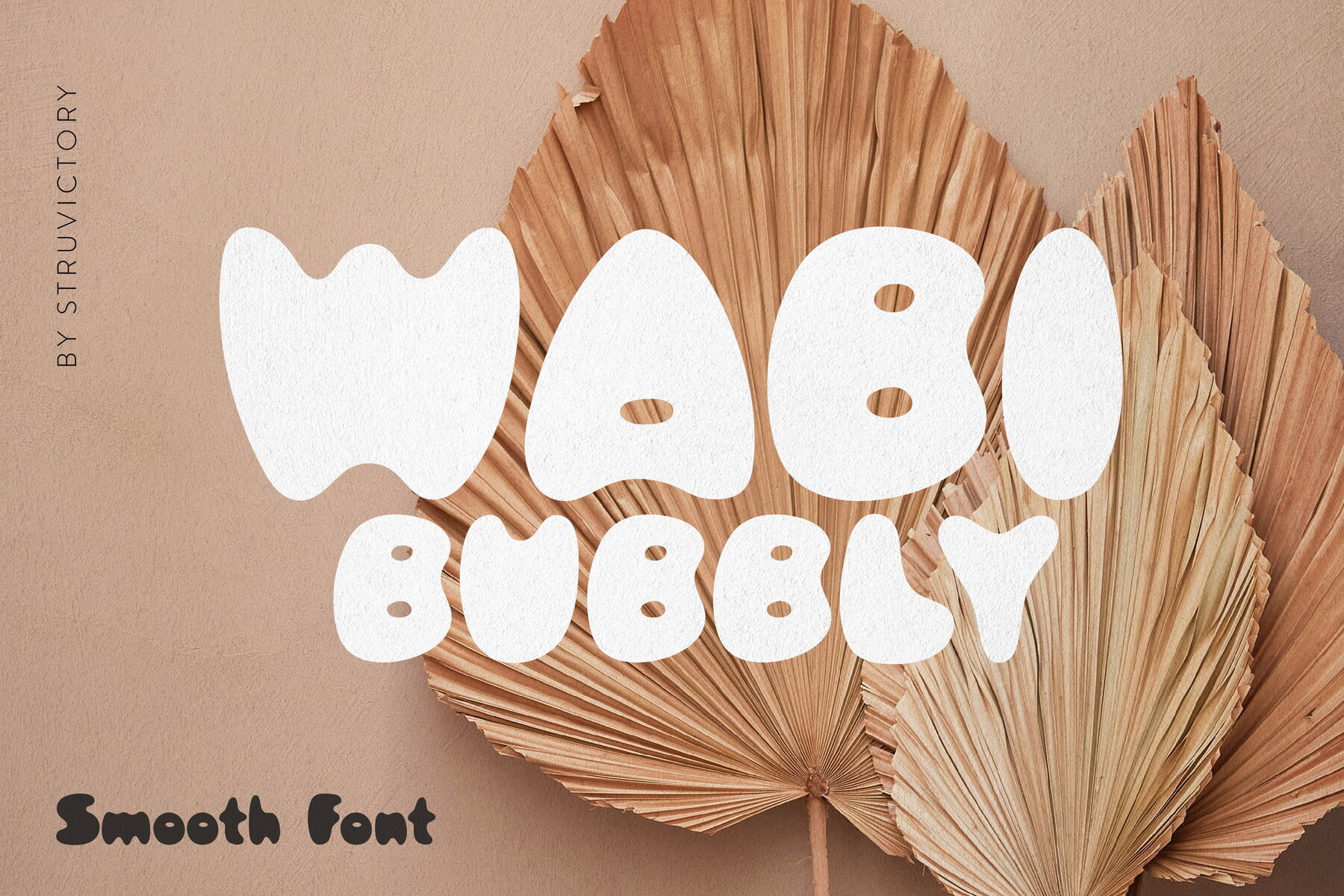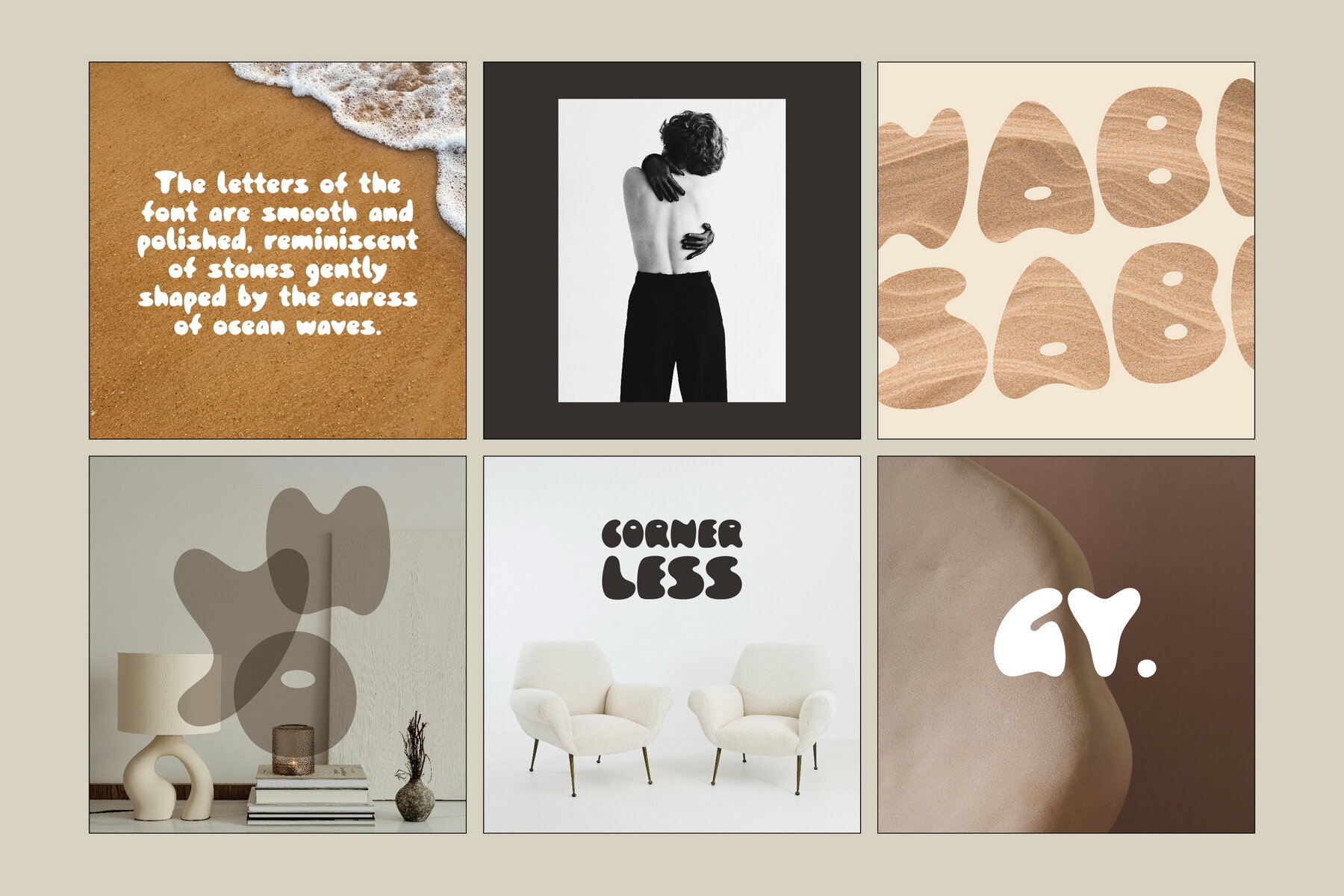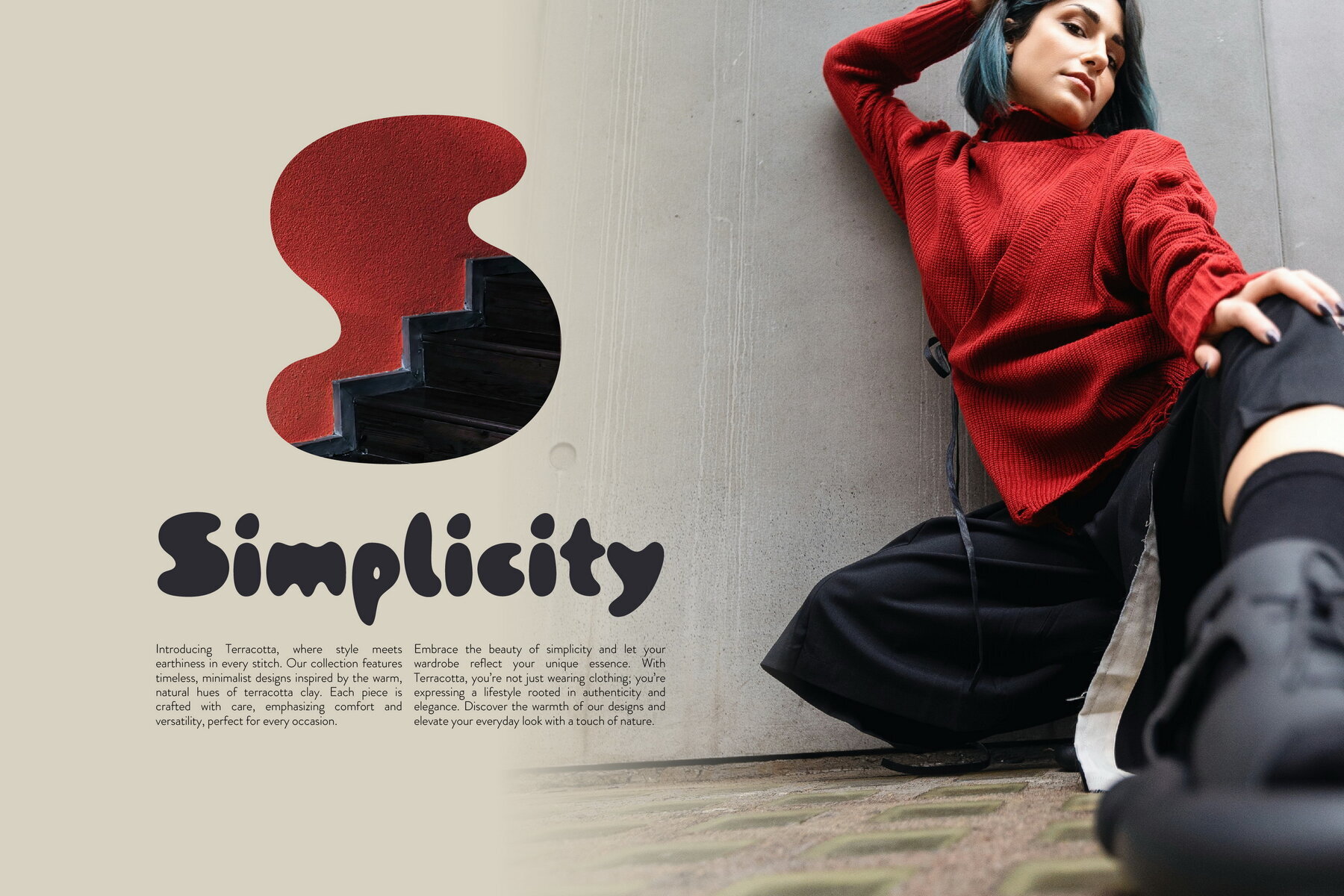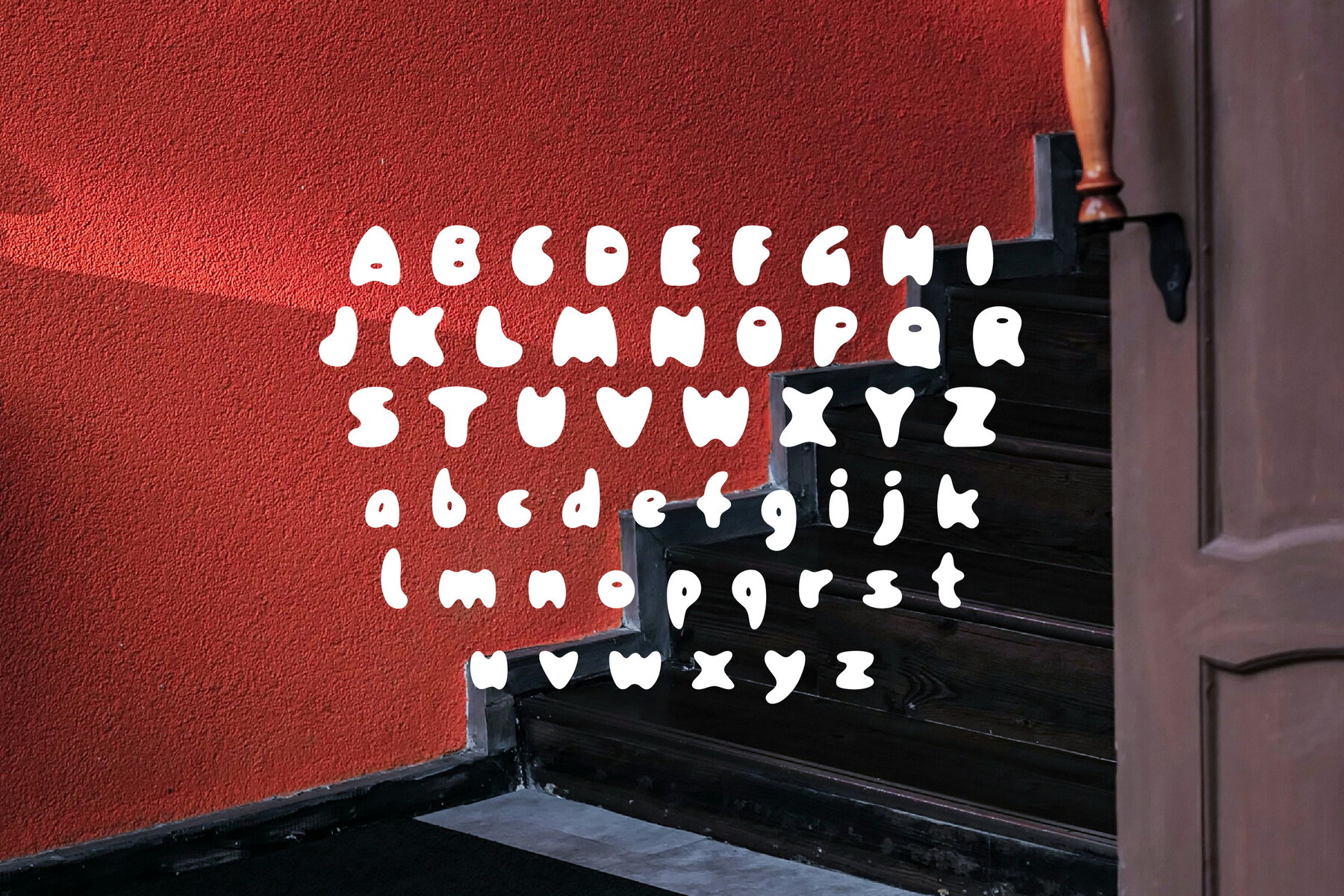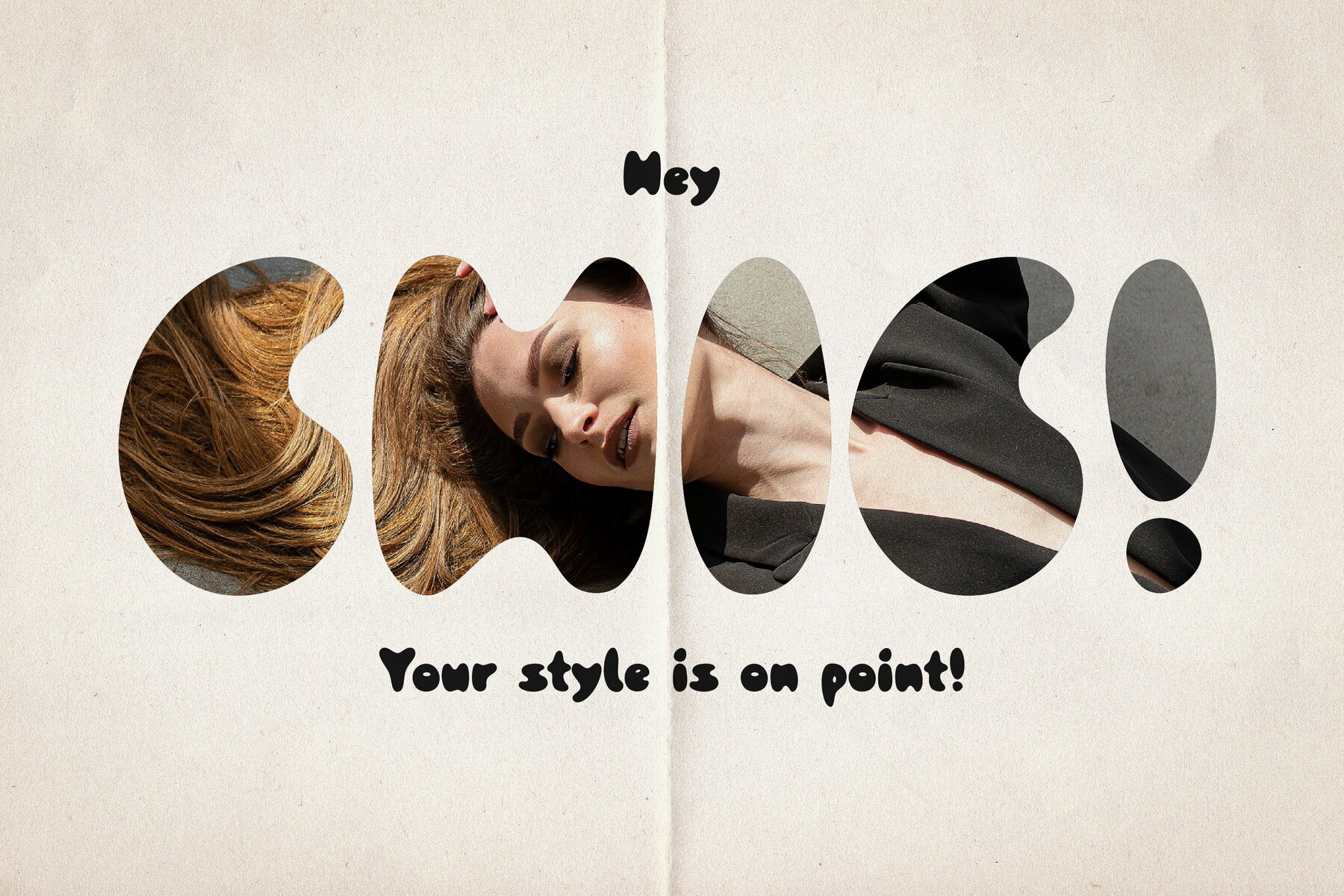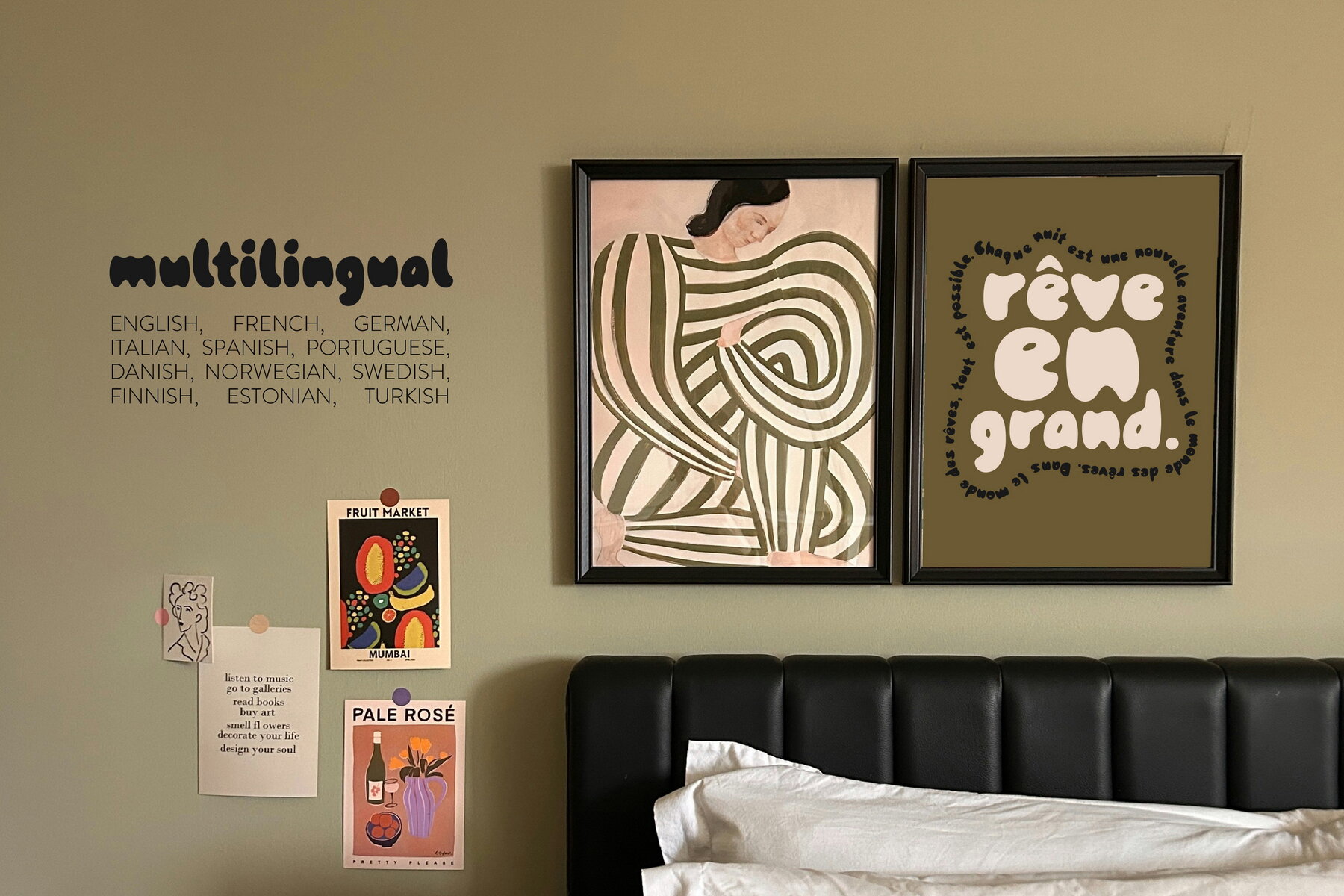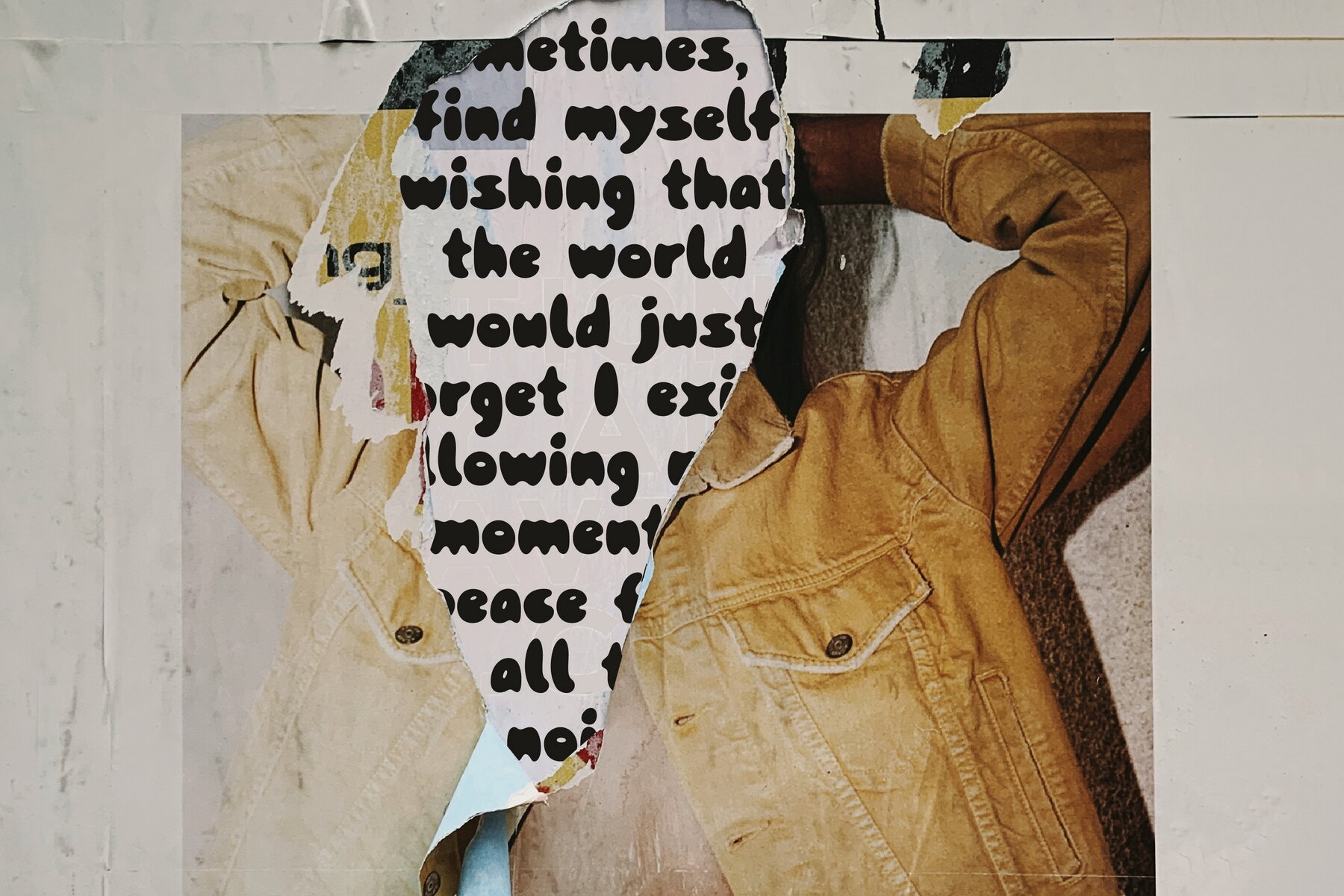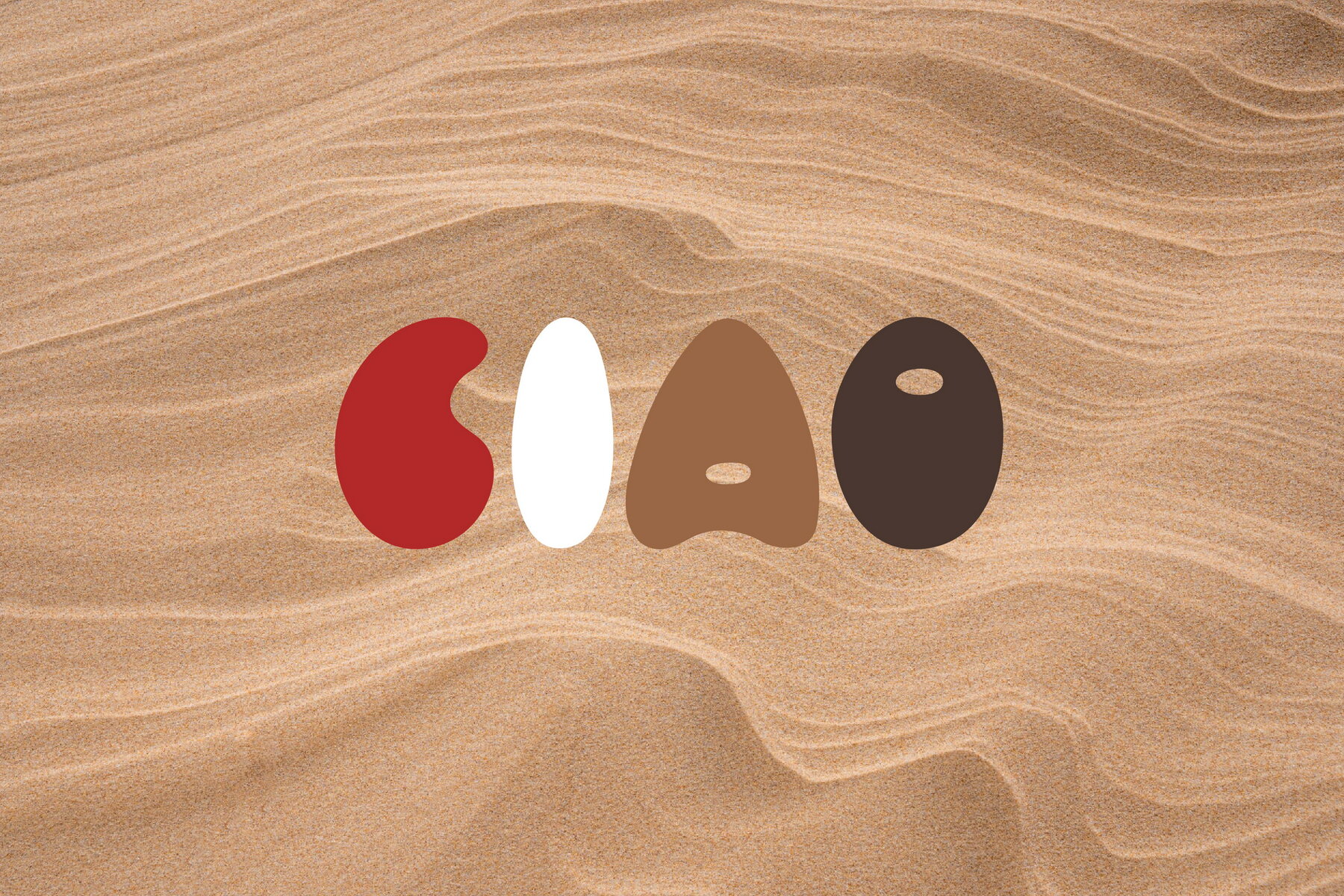
Wabi Bubbly
Wabi Bubbly is a captivating rounded font that merges the principles of wabi-sabi with a nostalgic Y2K aesthetic. Its smooth, bubbly shapes lend an inviting and friendly atmosphere to your designs. Ideal for projects that balance minimalism with whimsy, Wabi Bubbly is perfect for crafting vibrant social media content, designing trendy merchandise, or developing striking branding concepts.
With support for the most popular Latin-based languages, Wabi Bubbly ensures versatility and wide-reaching applicability. Its unique design captures attention and evokes a sense of nostalgia, making it a valuable addition to your creative toolkit.